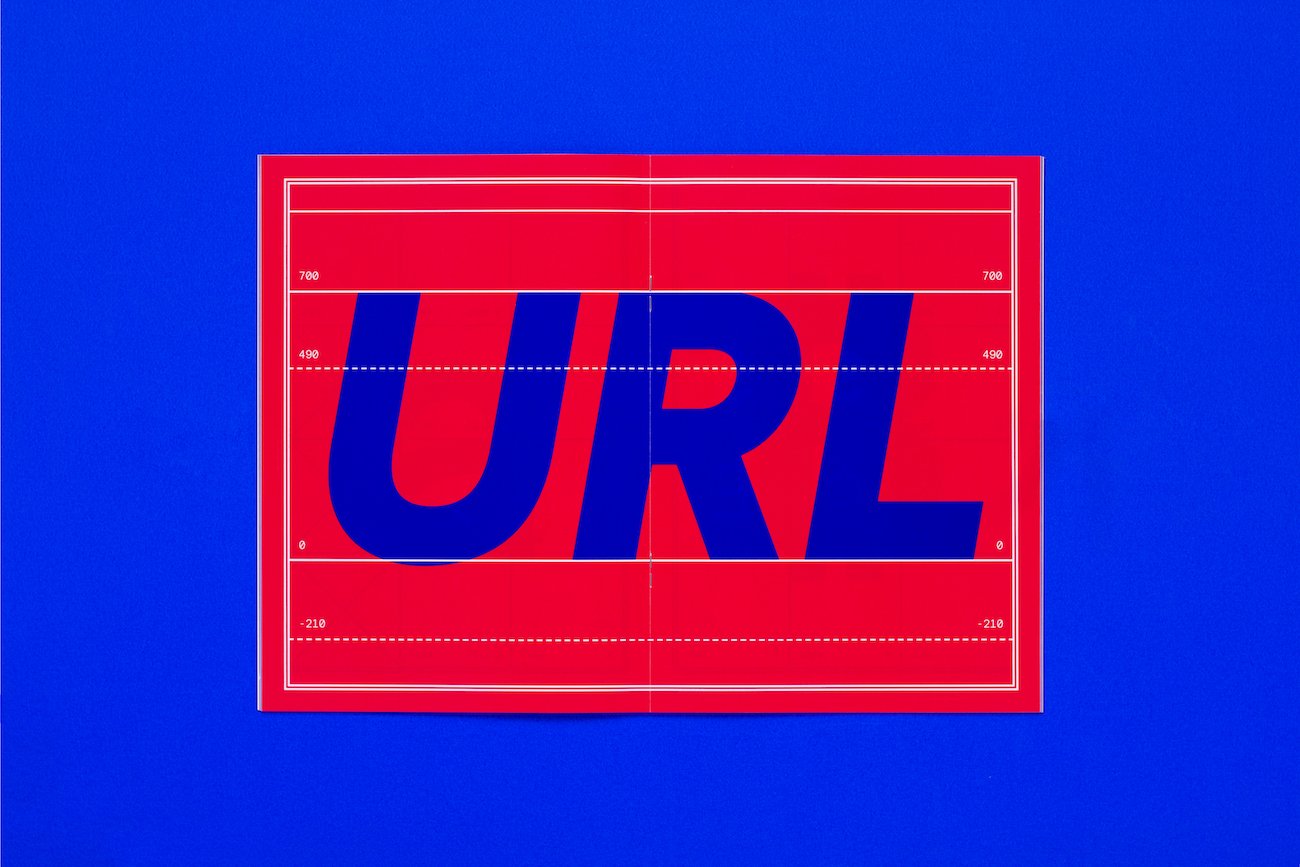
Modern Era font by OMSETYPE | Mindsparkle Mag
Modern Era is a sans-serif type family consisting of 12 styles ranging from Light to Black with corresponding italics and four accompanying monospace style...